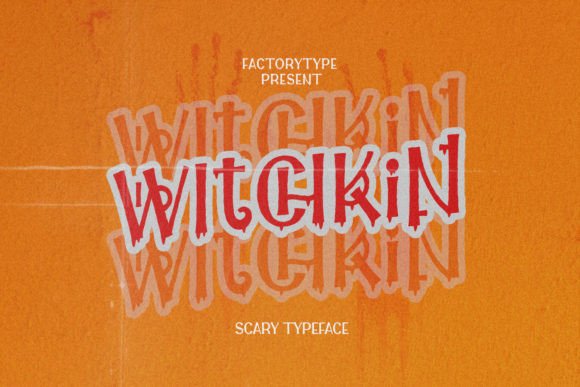
Unleash the dark magic of your designs with Witchkin, a hauntingly beautiful display font that will cast a spell on your audience. This masterpiece, conjured by the creative minds at Factory738, is the ultimate font for conjuring up spine-tingling horror projects.
Witchkin's intricate lines and chilling details will send shivers down your audience's spines, making it the perfect companion for Halloween invitations, horror novel covers, and anything else that needs a touch of the supernatural. Let Witchkin be your guide as you craft enchanting logos, wicked posters, and terrifying social media graphics that will leave your audience breathless.
But Witchkin's powers go beyond mere aesthetics. With its PUA encoding, you can effortlessly access a treasure trove of glyphs and ligatures, unlocking a world of endless creative possibilities. Unleash your inner sorcerer and weave your words into mesmerizing spells, leaving your audience spellbound and eager for more.
So, step into the shadows with Witchkin and let your imagination run wild. Let it be the haunting backdrop for your tales of terror, the spine-chilling accompaniment to your chilling poems, and the devilish charm in your Halloween designs.
With Witchkin, the limits of your creativity are as boundless as the darkness itself. Embrace the magic, embrace the fear, and weave your way to typographic mastery.